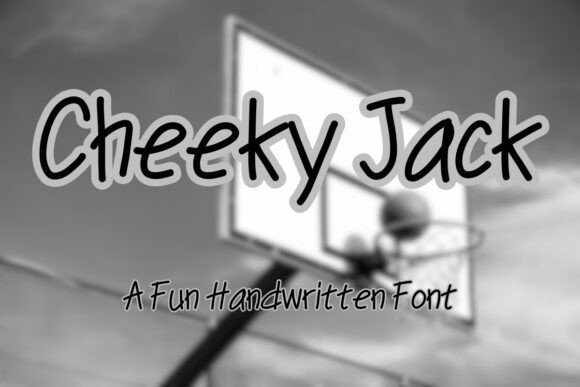
Introduction to Cheeky Jack Font
Cheeky Jack is a unique handwritten font designed to bring fun and playfulness to your creative projects.
Perfect for casual and informal designs, this font works beautifully for posters, cards, logos, and social media graphics Its distinct and easy-to-read lettering adds a friendly and lively touch to any design.
Why Choose Cheeky Jack Font?
Cheeky Jack Font offers exceptional quality and versatility, making it a valuable addition to your design toolkit. Whether you’re creating for personal projects or commercial use, Cheeky Jack Font delivers professional results.